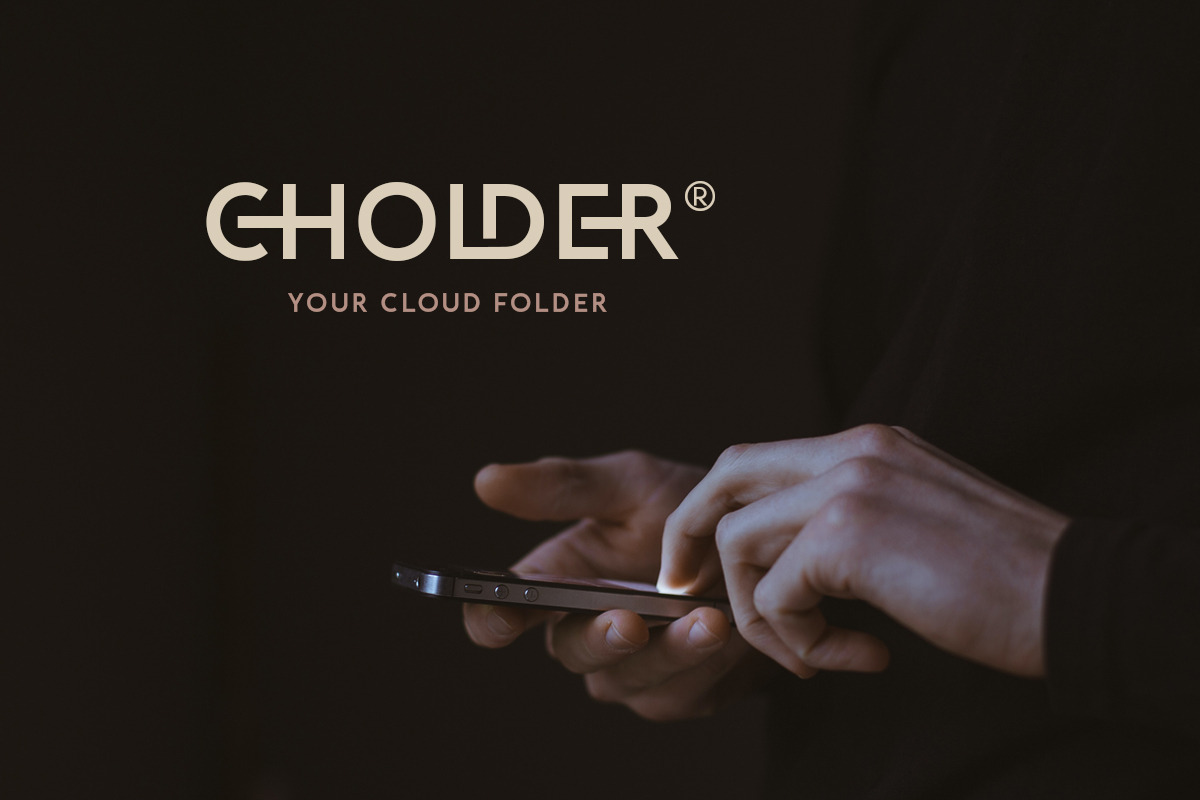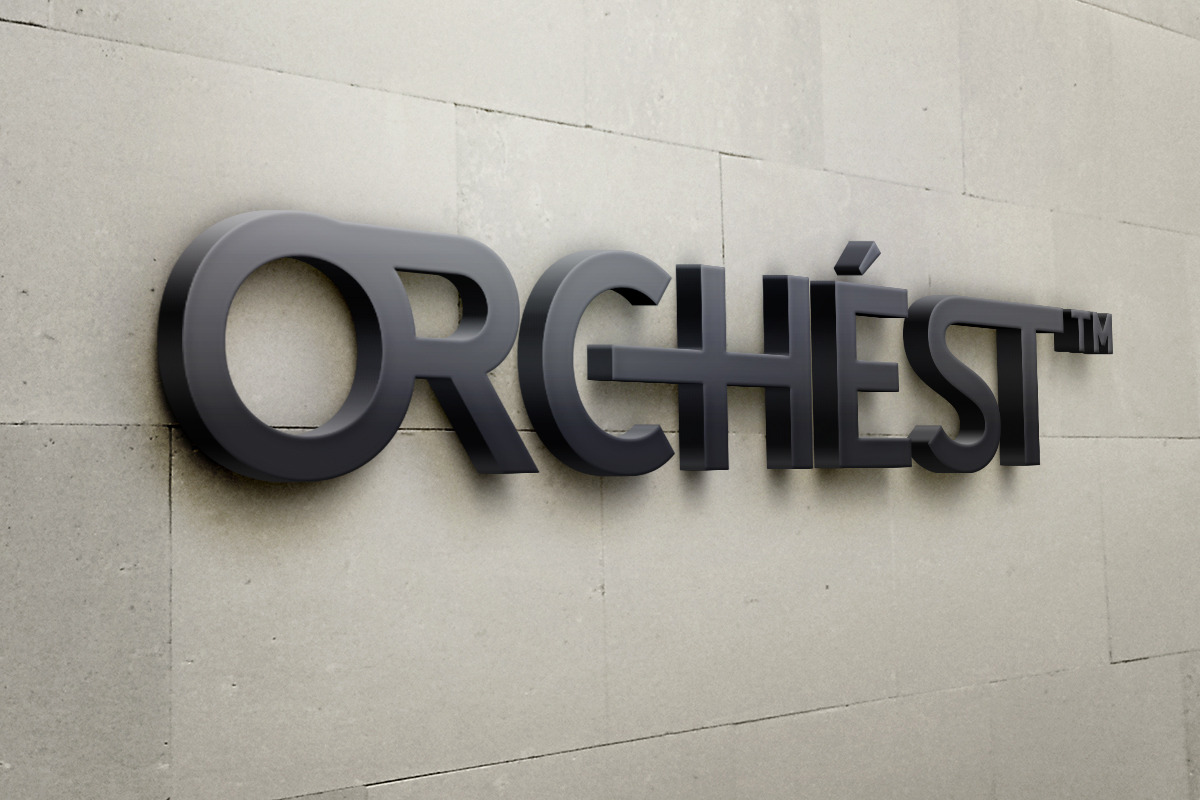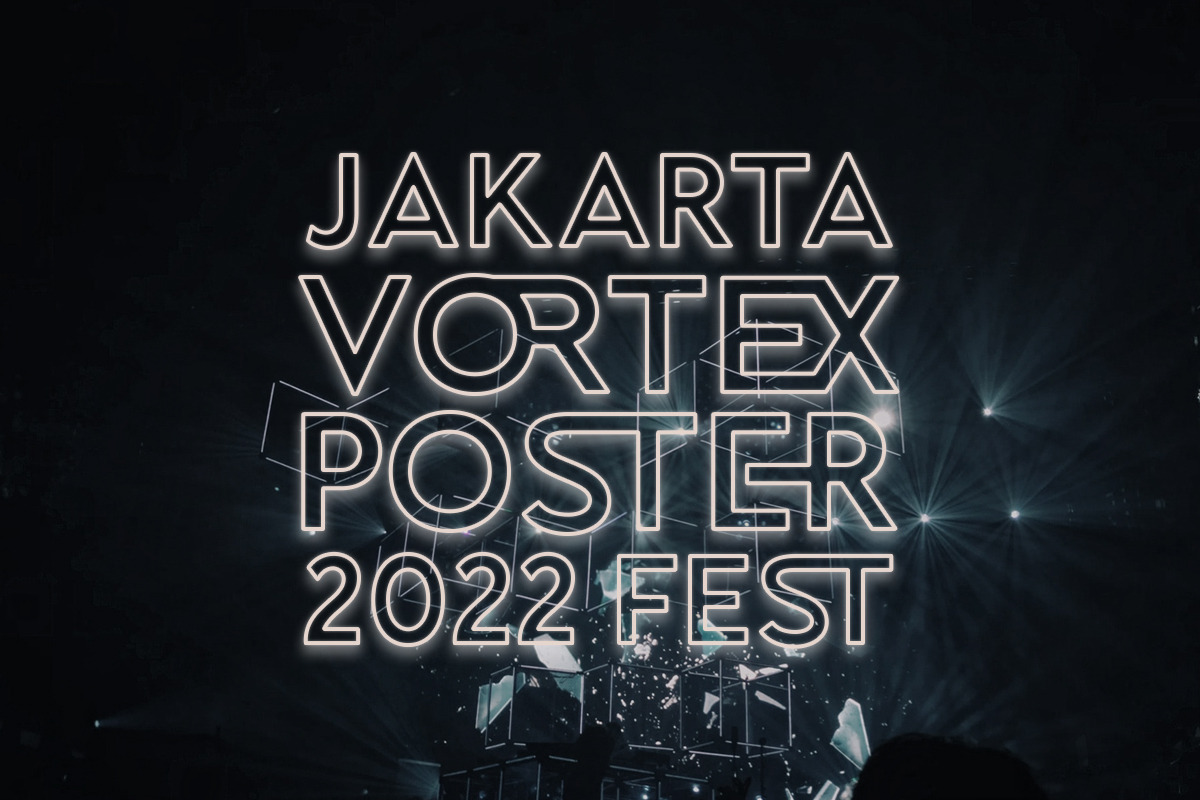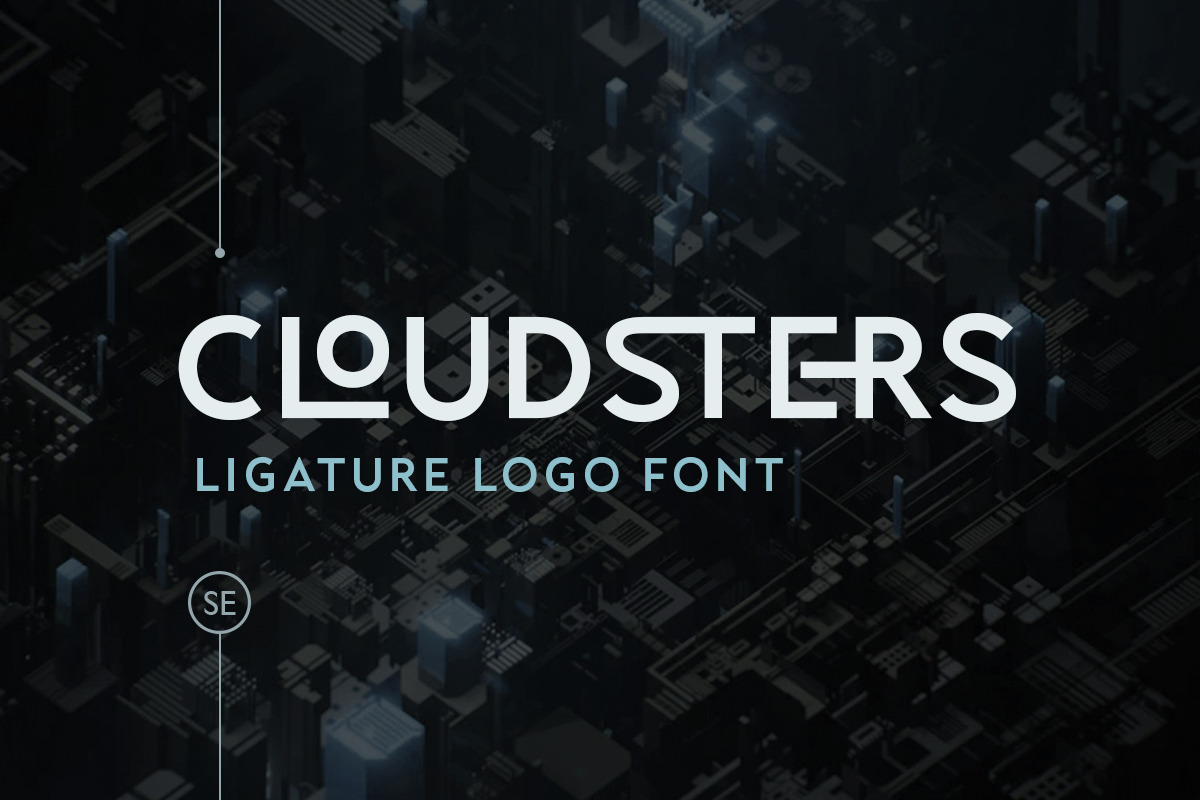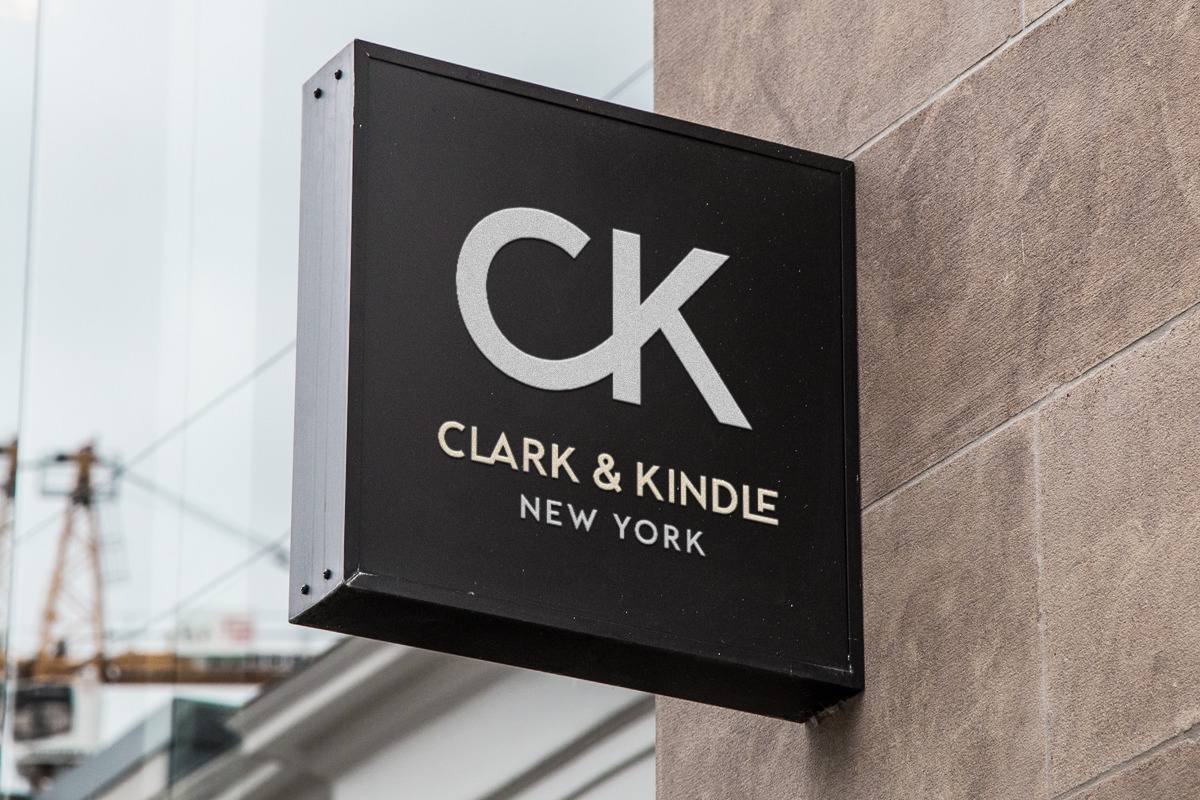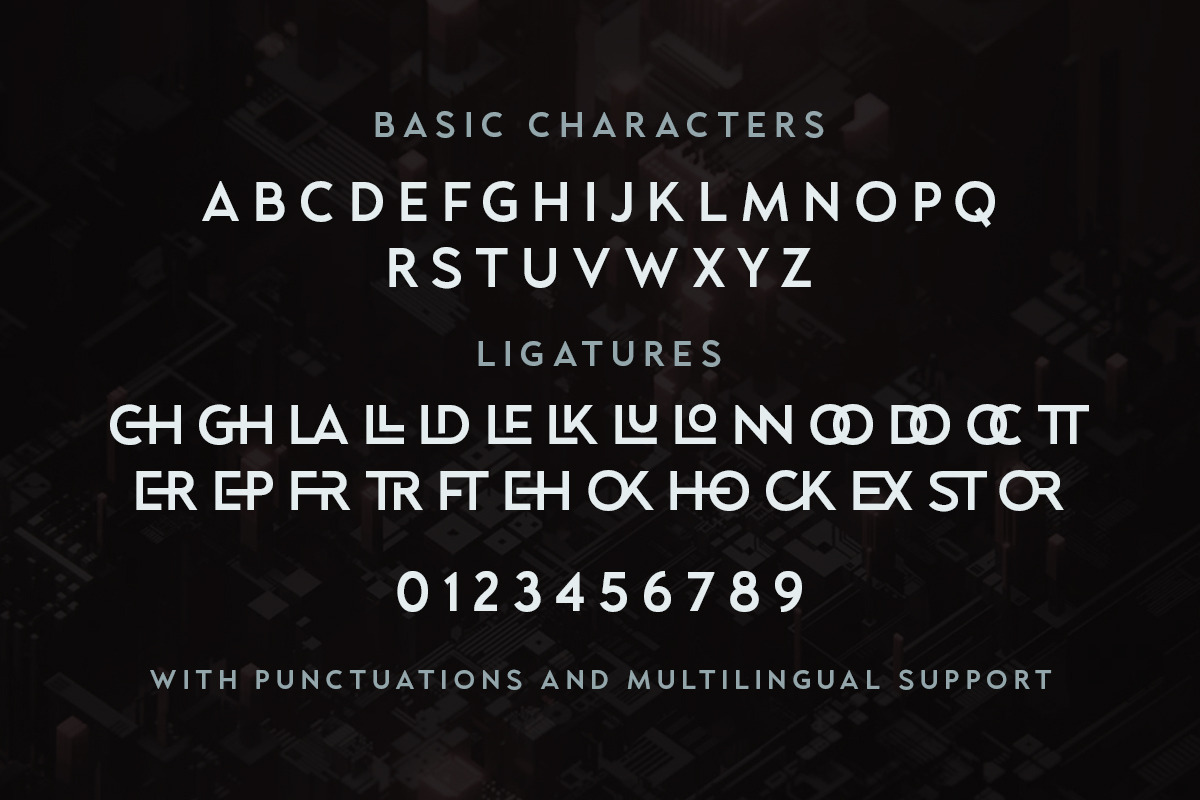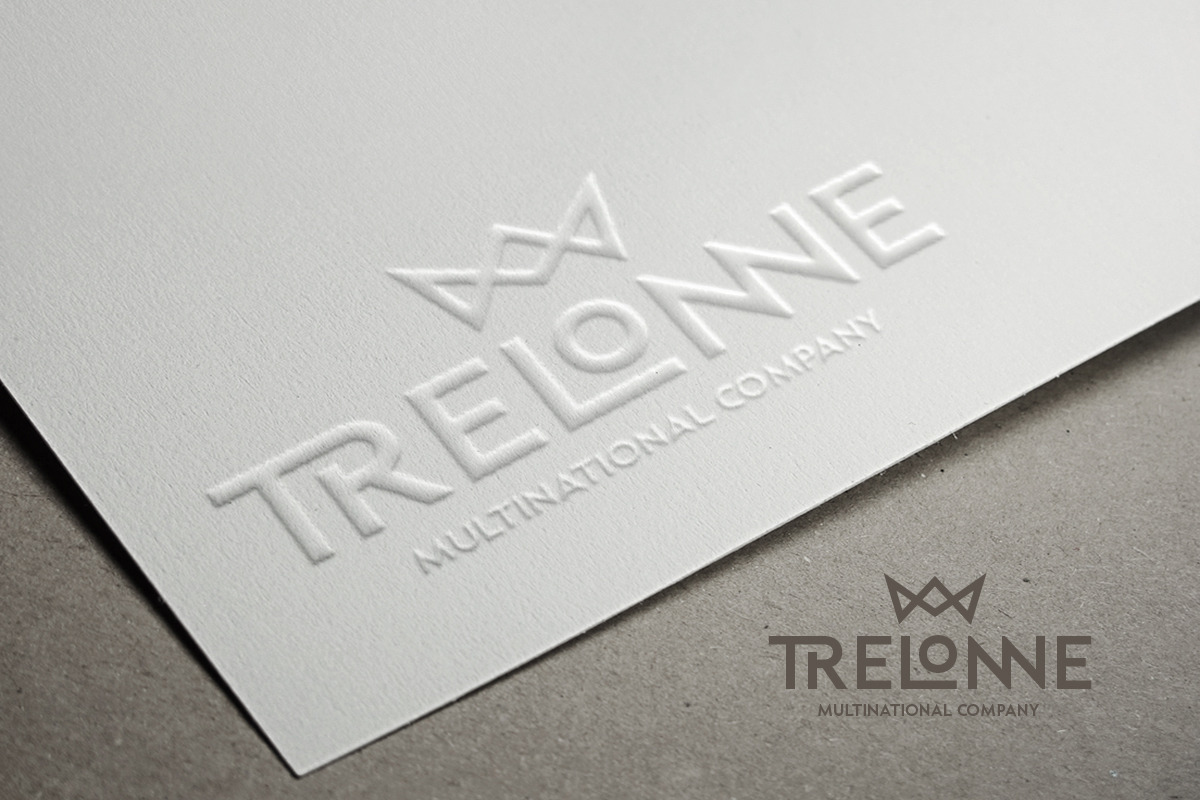
Cloudsters - Ligature Logo Font
Introducing, Cloudsters, a logo font with ligatures!
Cloudsters is a sans based font with unique ligature that will make your design looks clean and modern. You can use this font for any purpose, especially to make logotype. This font have special ligatures that will make your design more stand-out!